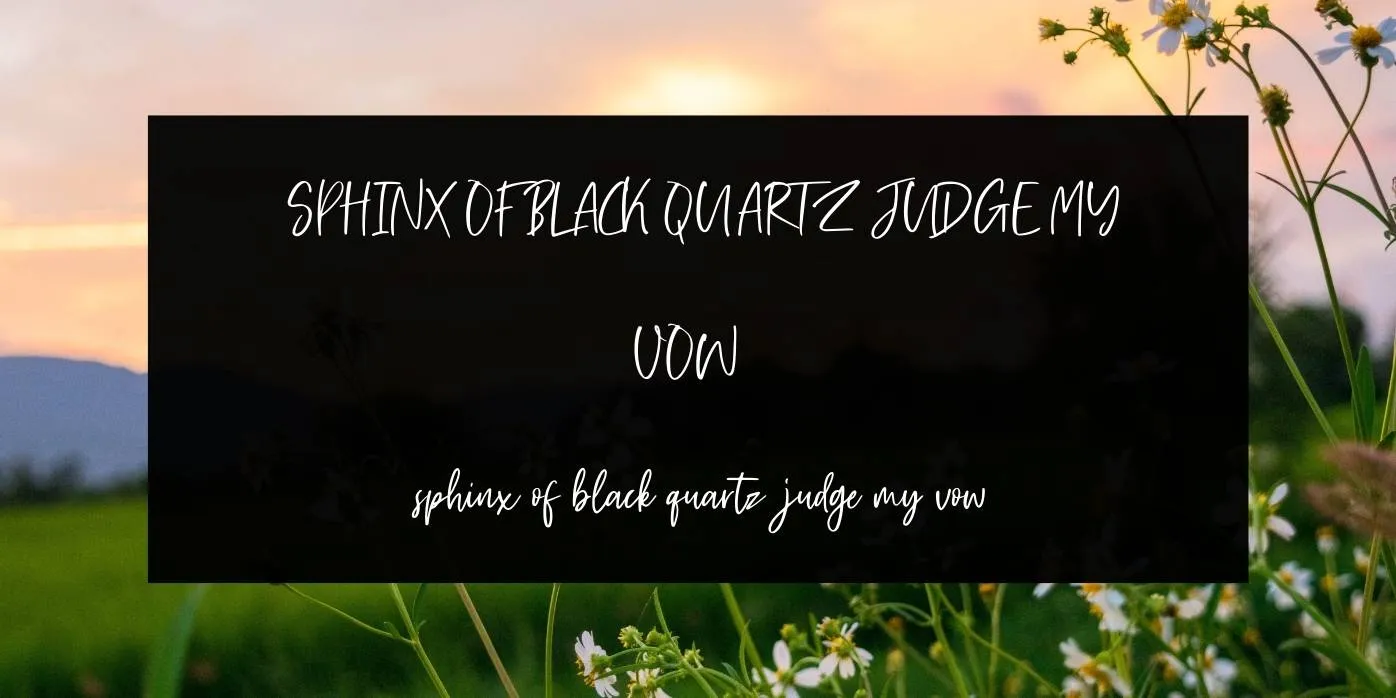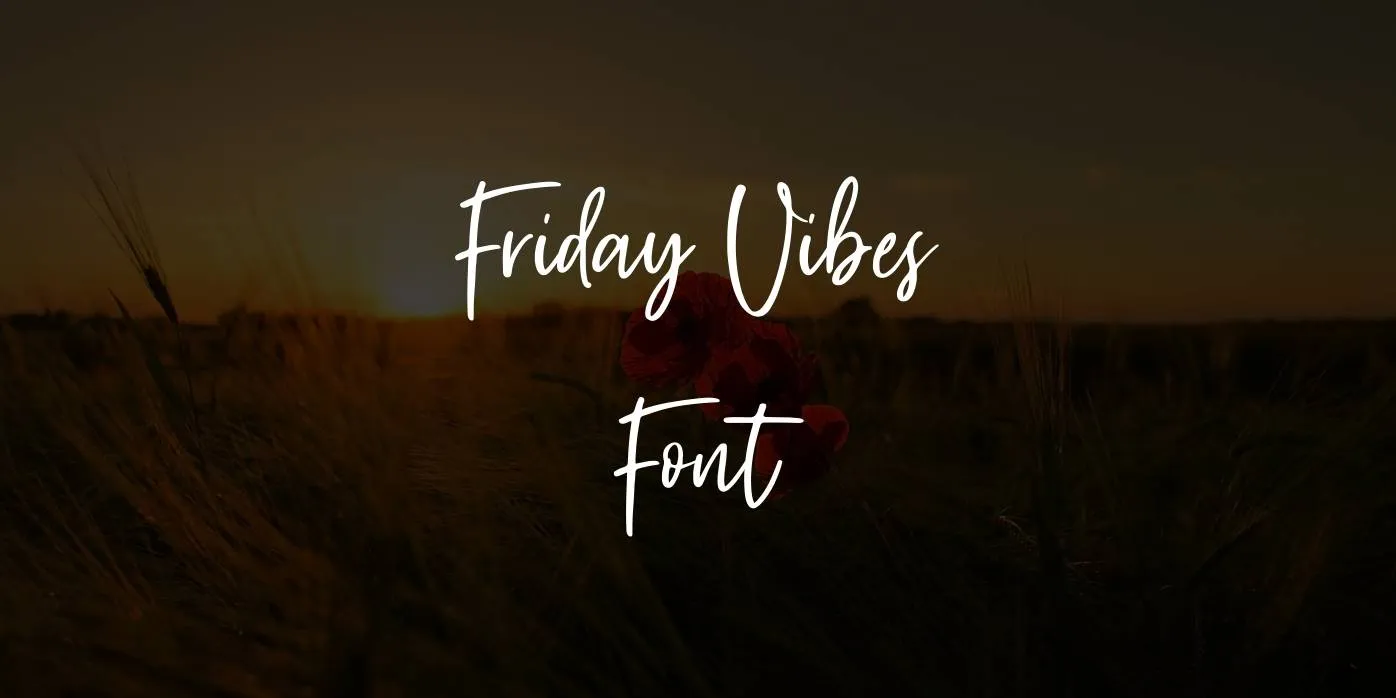
Friday Vibes Font
Friday Vibes Font is a popular font that is used by many people for their personal and professional projects. The font has a unique style that makes it stand out from other fonts. This font was created by a designer named Brian J. Bonislawsky.
Bonislawsky is a typeface designer who has worked on many different fonts, but Friday Vibes Typeface is his most famous creation. The font was first released in 2010 and has since been used by many people for their projects. If you want to see the similarities of this typeface and want to pair them then unique font is the best option for you. The font is available in two different styles, regular and bold.
The regular style is the more popular of the two and is often used for body text. The bold style is typically used for headings or for larger text.